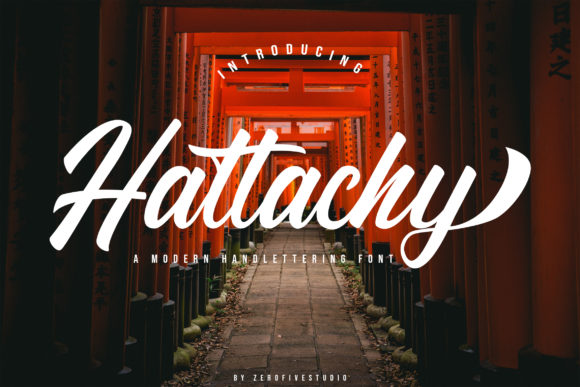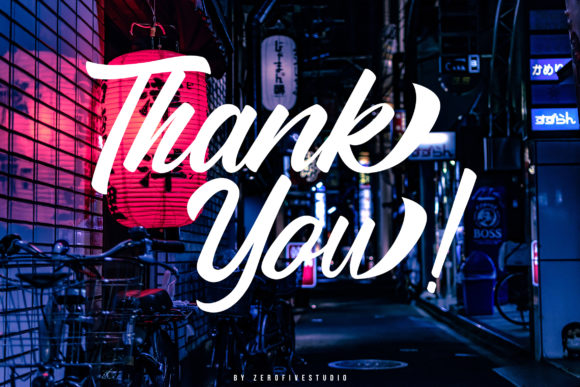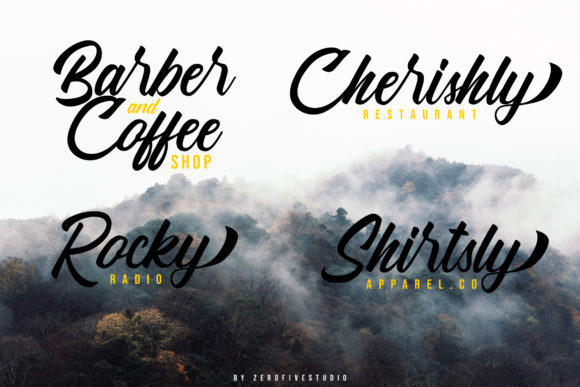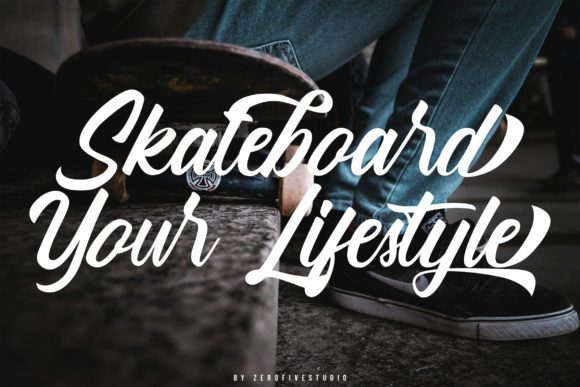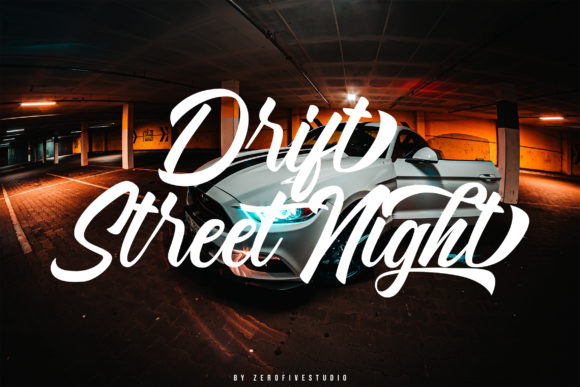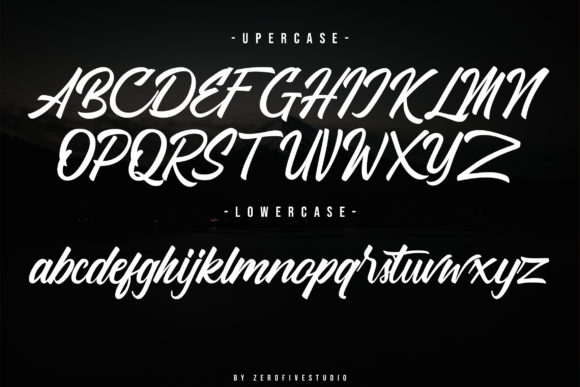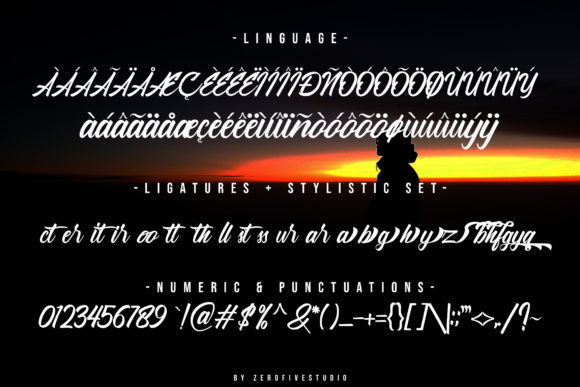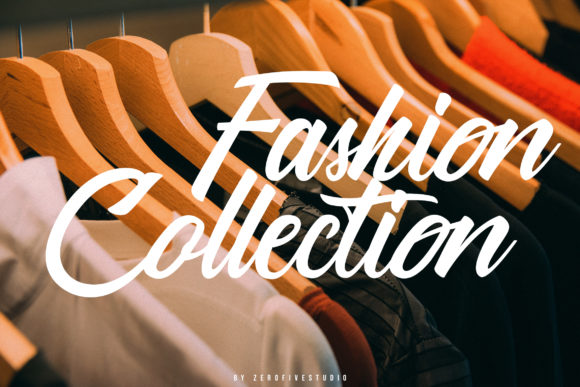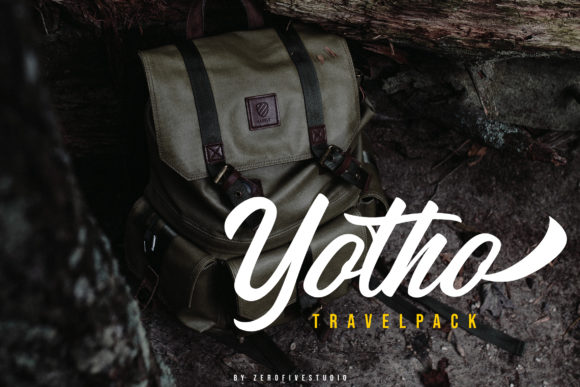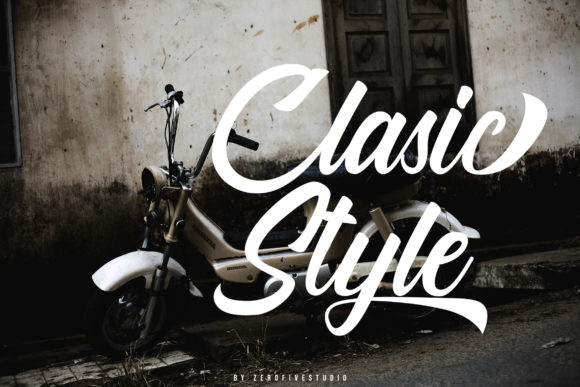
Hattachy Modern Handlettering Font
About Hattachy Modern Handlettering Font
Hattachy is a sweet, soft hand-lettered script font. The playful rounded characters make it the perfect font for creating stunning Valentine’s art. Shelia comes packed with bold swashes, that will allow you to add a decorative touch within seconds. Get inspired by its romantic feel and use it to create gorgeous wedding invitations, beautiful stationary art, eye-catching social media posts, and cute greeting cards.